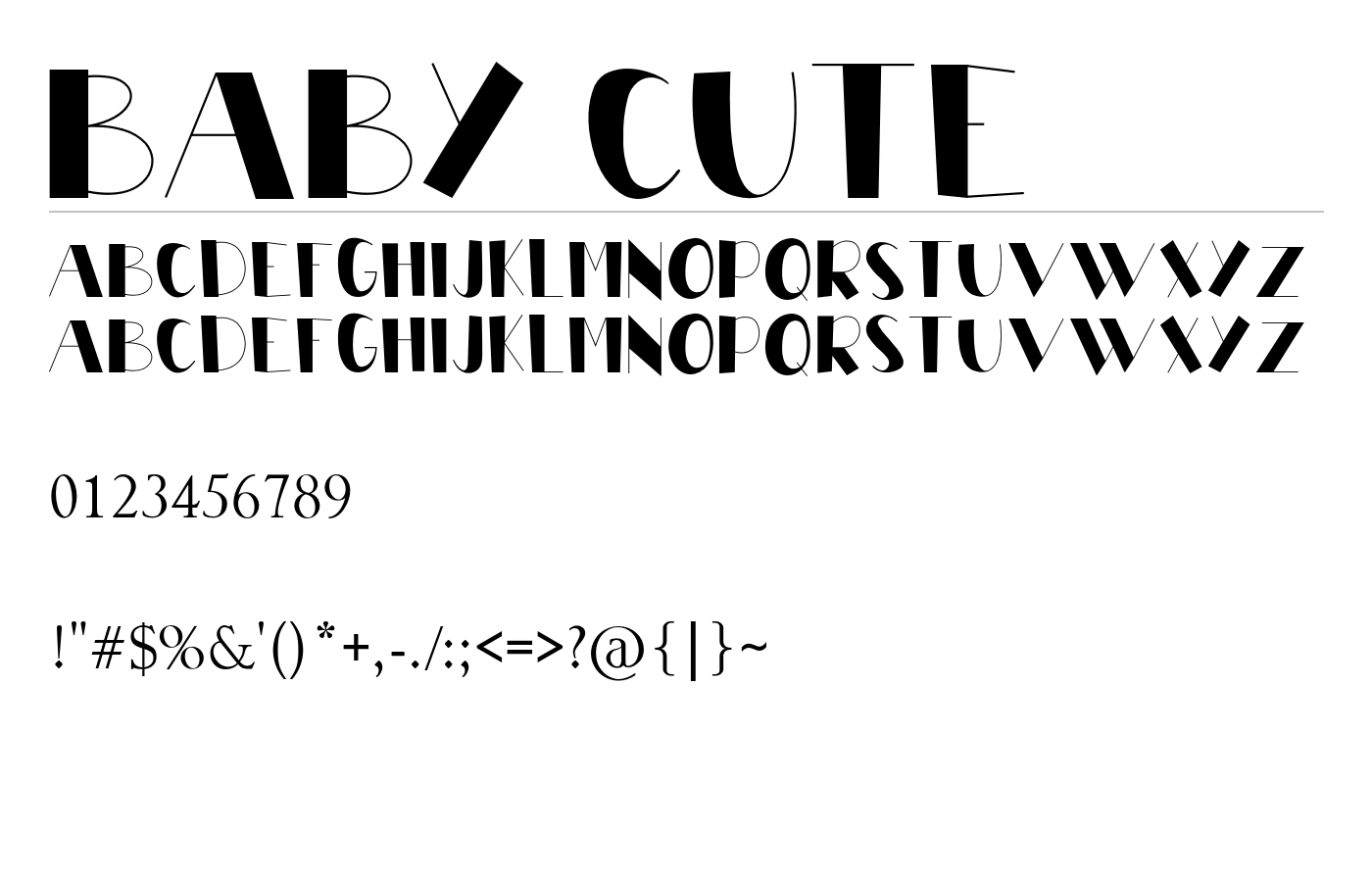
BABY CUTE is a playful and whimsical sans serif font with a mix of thick and thin strokes that lend it a lively, almost hand-drawn feel. Its tall, narrow letterforms and quirky, uneven shapes give it a fun and youthful personality, making it ideal for creative and informal designs such as children’s products, invitations, and playful branding. This font works best in headlines or display uses where its unique style can really stand out and add charm.
BABY CUTE Font
About BABY CUTE Font